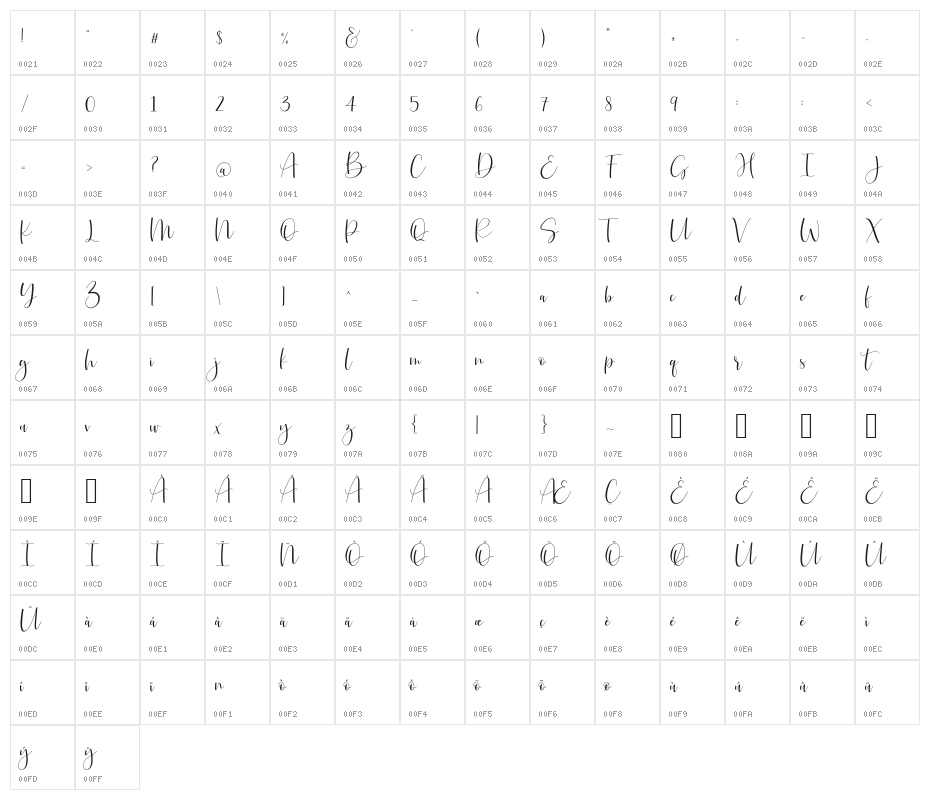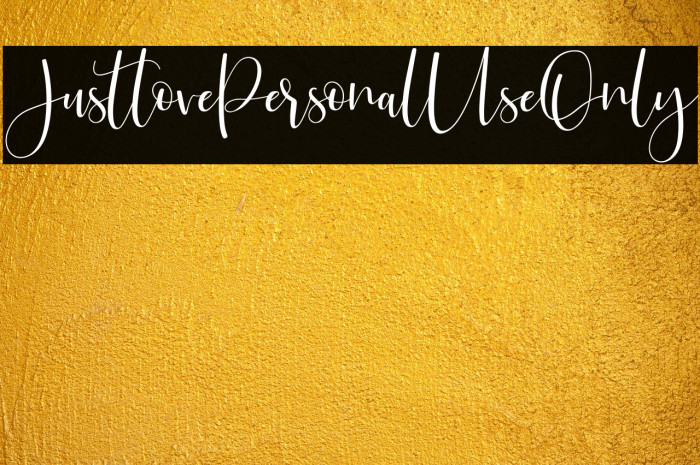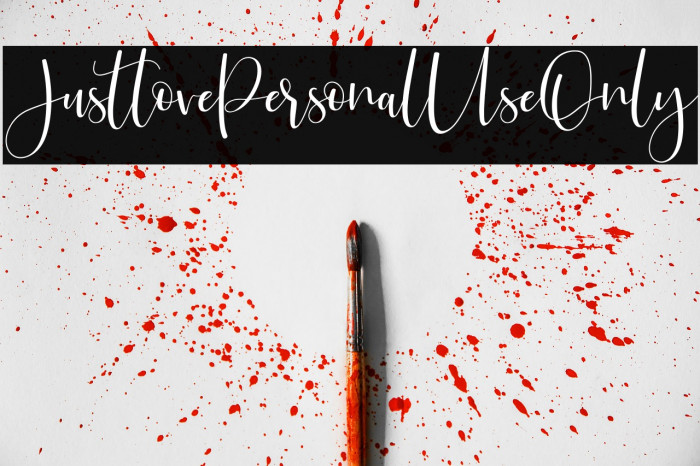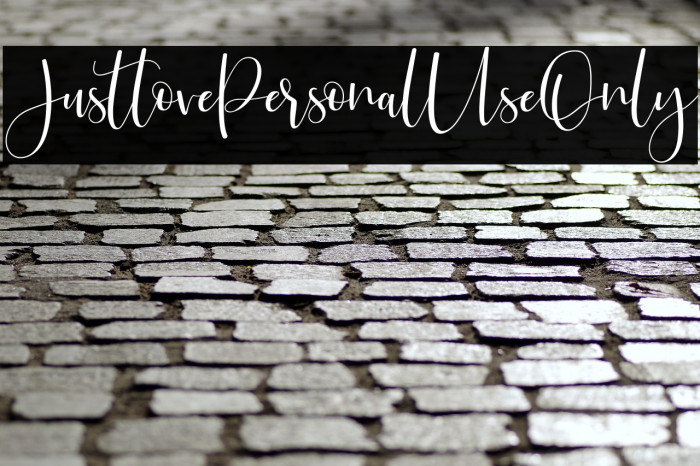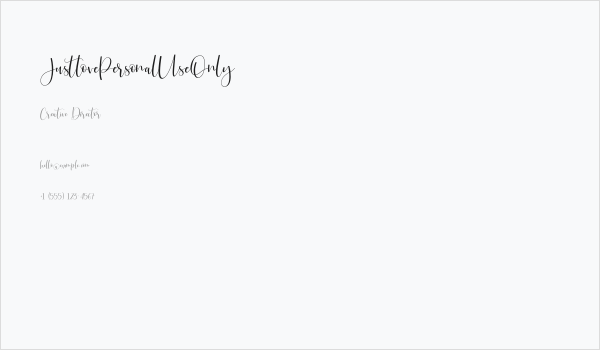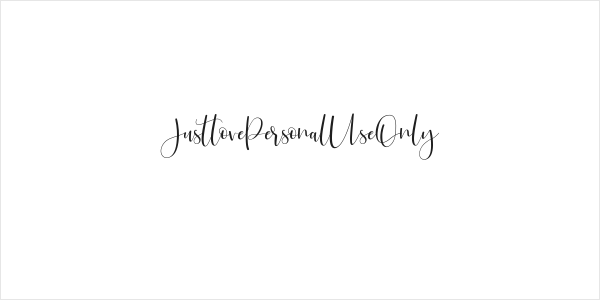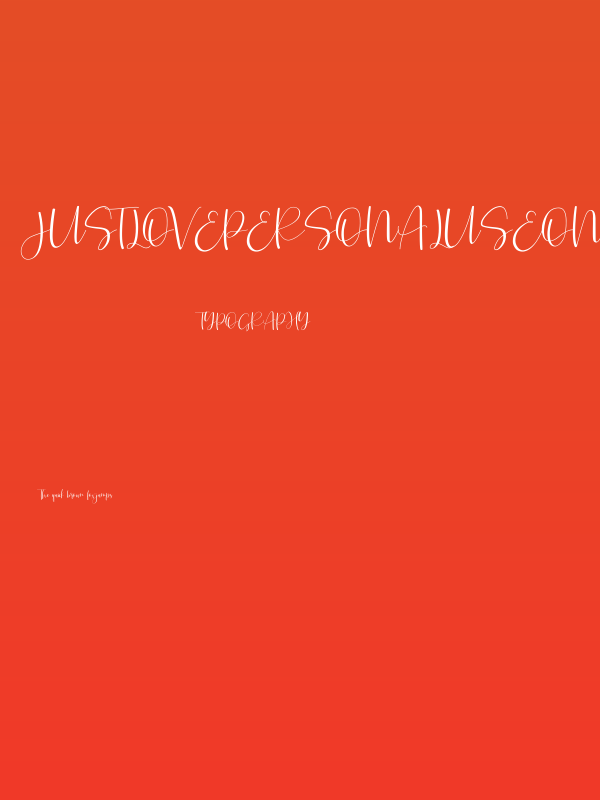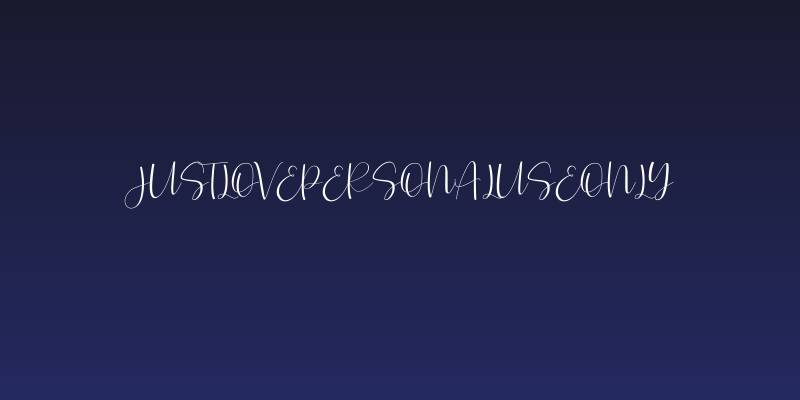
JustlovePersonalUseOnly Font
JustlovePersonalUseOnly Description
This elegant script font features flowing, cursive letterforms with a modern flair. The uppercase letters are tall and graceful, with sweeping ascenders and descenders that add a touch of sophistication. The lowercase letters maintain a consistent style, offering a harmonious blend of curves and loops that enhance readability while retaining a decorative appeal. The numerals are designed with a similar elegance, ensuring they complement the overall aesthetic. Special characters are thoughtfully crafted to match the font's style, making it versatile for various uses.
| Proposed Projects | Ideal for wedding invitations, greeting cards, branding, and elegant logo designs. |